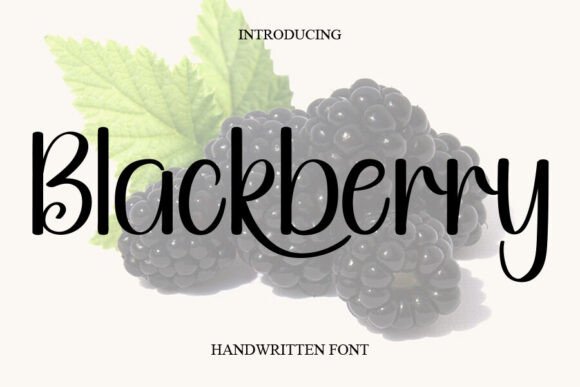
The Timeless Charm of Blackberry Font: A Designer’s Delight
I still remember the day I stumbled upon the Blackberry font while working on a branding project for a boutique client. I had tried countless fonts, but none seemed to capture the essence of her elegant and sophisticated brand. That was until I laid eyes on Blackberry – a lovely and timeless handwritten font that instantly resonated with me. In this article, I’ll share my experience with Blackberry, its unique features, and how to make the most of it in your designs.
An Honest Review of Blackberry Font
What I Love About Blackberry Font ✨
- Unique and beautiful touch to every letter ✅
- Perfect for creating eye-catching logos, branding, and quotes 📣
- Timeless and elegant feel that suits various design projects 🕰️
- Handwritten style that adds a personal touch to your designs ✍️
While Blackberry font is an excellent choice for many design projects, it’s essential to note a few limitations:
- May not be suitable for very small font sizes ⚠️
- Limited availability of stylistic alternates (but still offers some OpenType features) 📊
The Story Behind Blackberry Font
Blackberry font was designed with the intention of creating a timeless and elegant handwritten font. The designer aimed to craft a font that would add a personal touch to various design projects, from logos and branding to quotes and posters. With its unique and beautiful letterforms, Blackberry font has become a popular choice among designers and crafters.
Q: What type of projects is Blackberry font best suited for?
A: Blackberry font is perfect for creating eye-catching logos, branding, and quotes, as well as adding a personal touch to various design projects.